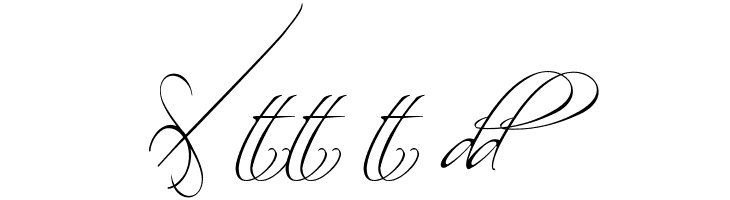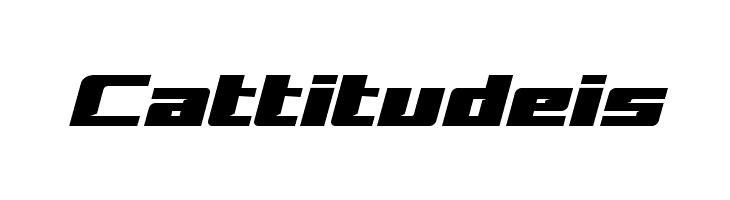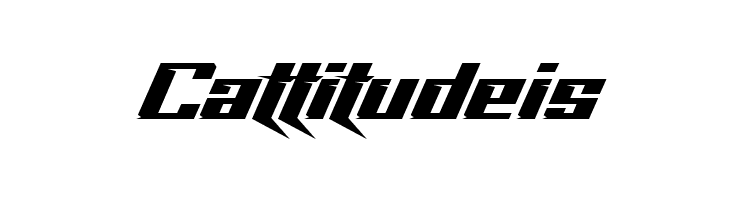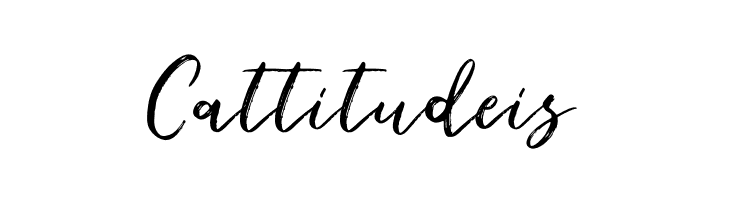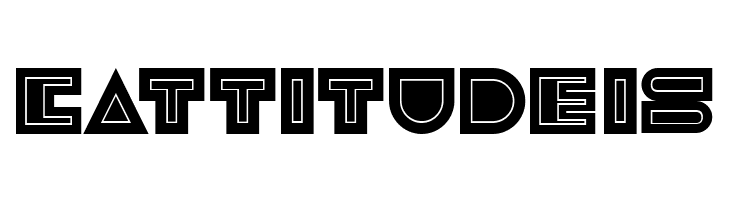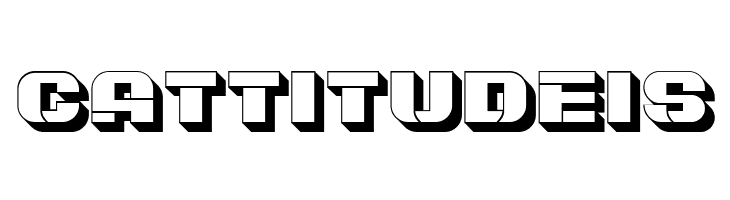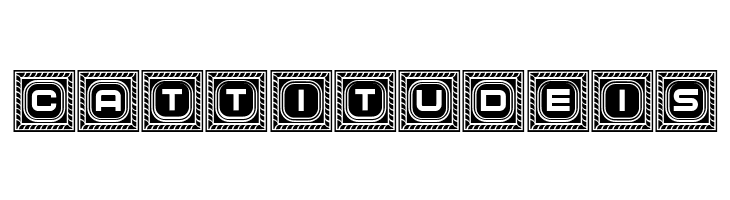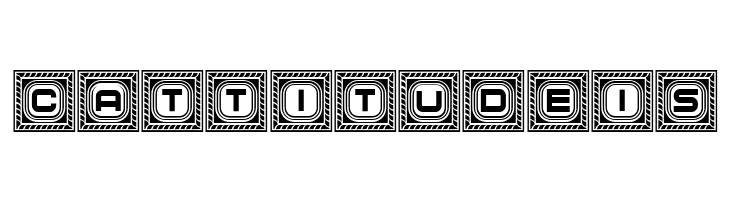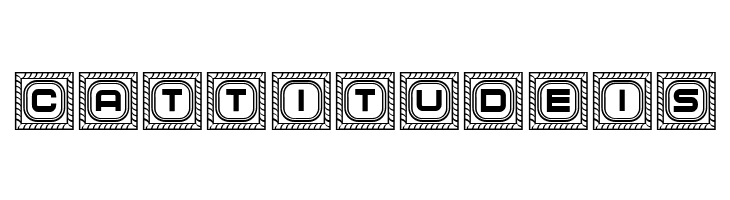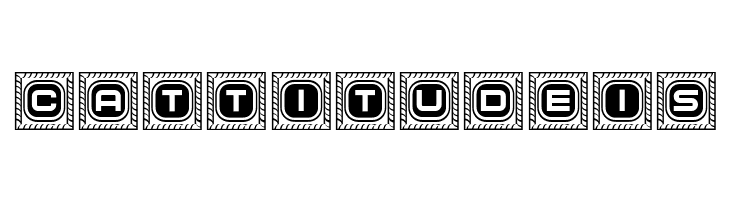
• Scribling FREE
A lively, elegant handwritten font with fluid cursive strokes.
• ScriblingFREE
An elegant, flowing script font with a handwritten, calligraphic style.
• Scriptina
An elegant, flowing script font with calligraphic style.
• Scriptina - Alternates
An elegant script font with flowing, intricate letterforms and ornate flourishes.
• Scriptina Pro
• ScriptinaPro
An elegant, cursive font with flowing, intricate designs and dramatic flourishes.
• ScriptSERIF
A distressed serif font with a grunge, textured style.
• ScriptSERIF ripTRASH
A distressed, grunge font with a torn, edgy appearance.
• Scroller
• Sculptor College Regular
A bold, modern font with a unique outlined, three-dimensional style.
• Sculptor Regular
A bold, futuristic font with a three-dimensional effect and geometric design.
• Scum Regular
A bold, decorative font with a layered, three-dimensional effect.
• sdhall4-Regular
A bold, angular font with a dynamic, modern style.
• sdprostreet-Regular
A bold, angular font with a dynamic and modern style.
• Seal Regular
A bold, decorative font with a 3D effect and intricate line work.
• Sealand
( Fonts by Mr.Soon Design )
A playful, decorative font with star-adorned uppercase letters and bold, rounded characters.
• SeaportScript-Regular
( Introduction of Seaport Font here is another gorgeous and artistical typeface that is known as Seaport font, designed and shared by a great type designer Fontforestry, who is a dominant name in the designing field. It is the first but extremely Wonderful. )
A dynamic, handwritten font with bold, fluid strokes and a creative flair.
• Search Regular
A bold, 3D font with a strong shadow effect and geometric design.
• Seasony
A lively, cursive script font with flowing, connected letters and a whimsical charm.